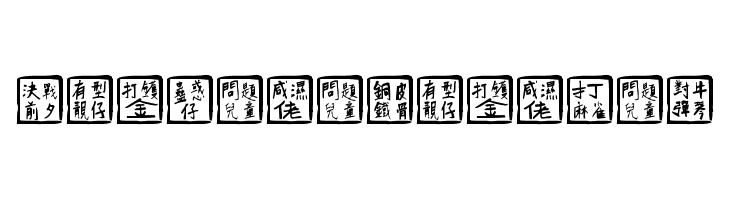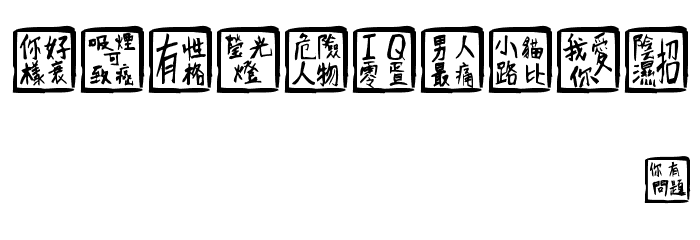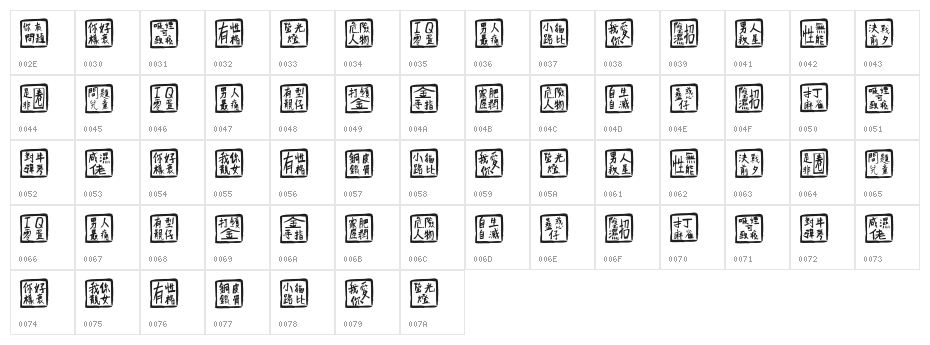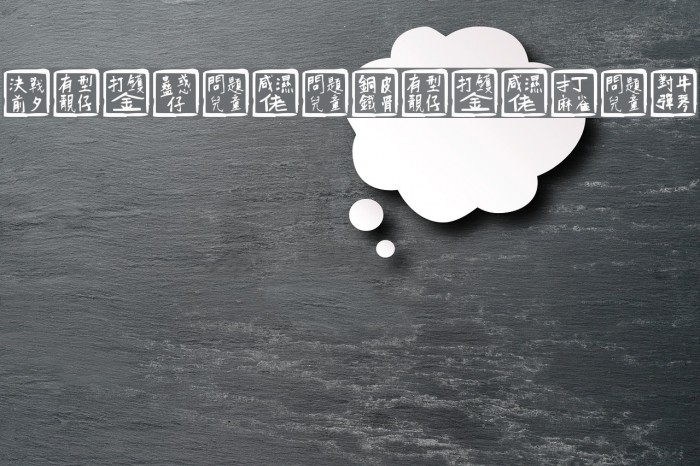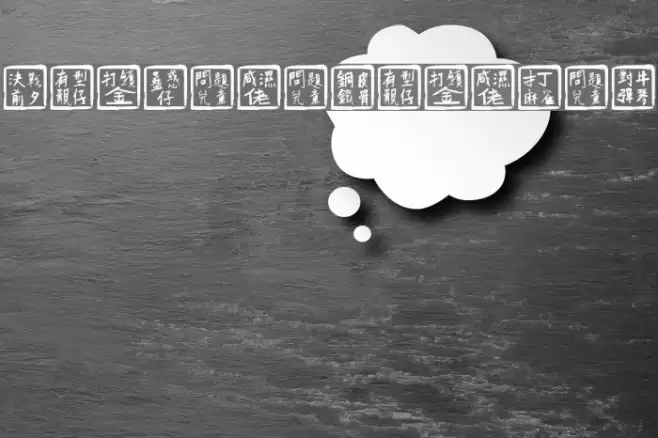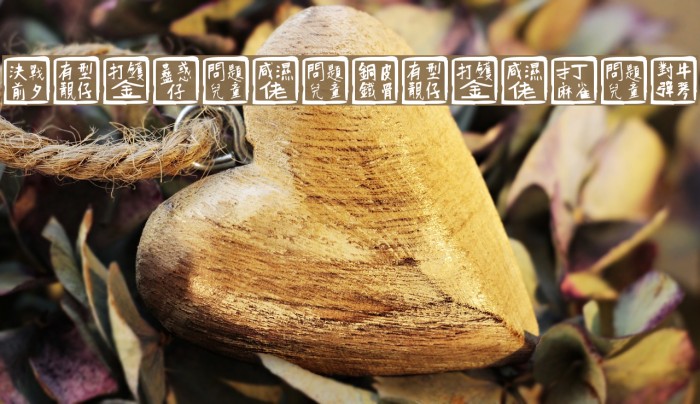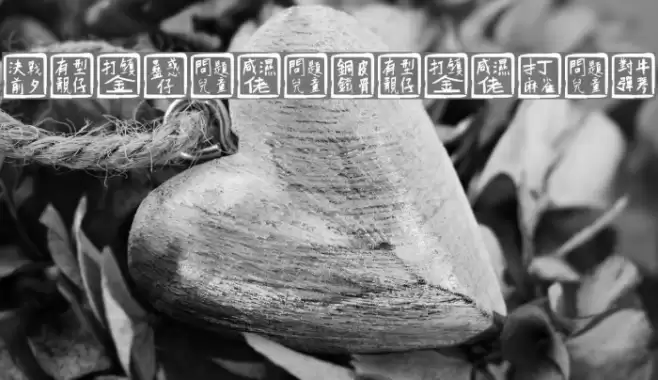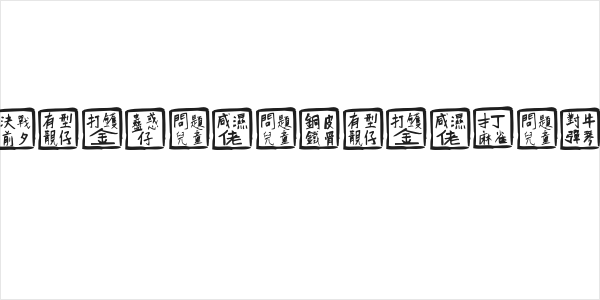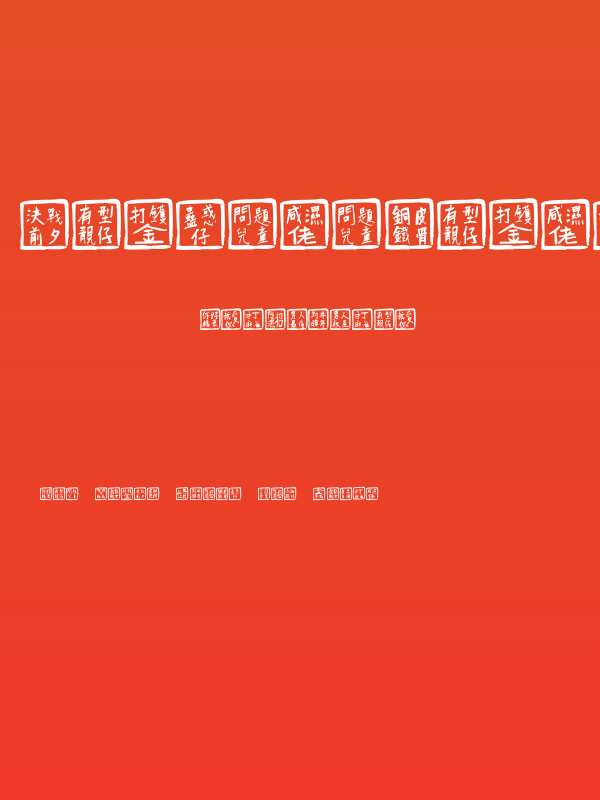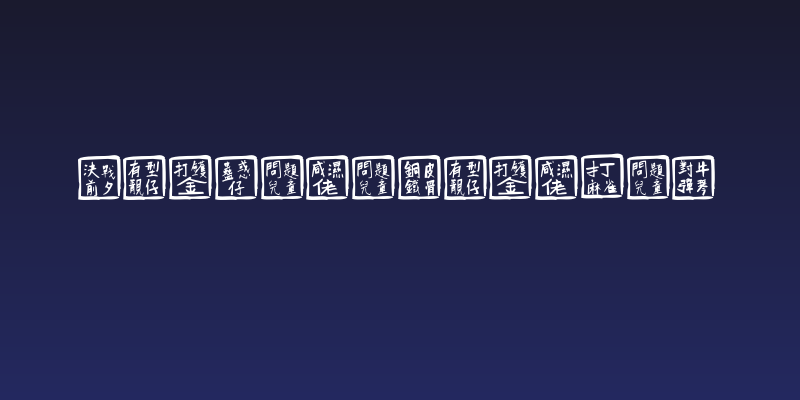
ChineseWhisper Font
ChineseWhisper Description
This font is a decorative style that mimics traditional Chinese calligraphy with a modern twist. Each character is enclosed in a square, giving it a structured and uniform appearance. The strokes are bold and expressive, with varying thickness that adds a dynamic feel to the text. The characters are intricately designed, capturing the essence of hand-drawn calligraphy while maintaining legibility. This font is ideal for projects that require an authentic and artistic touch, such as cultural events, themed posters, or branding that seeks to evoke a sense of tradition and elegance. The overall aesthetic is both classic and contemporary, making it versatile for various design needs.
| Overall Style | Classic, Decorative |
| Use Case | Headlines, Logos, Artistic projects |
| Proposed Projects | Ideal for cultural event posters, themed branding, artistic projects, and elegant invitations. |